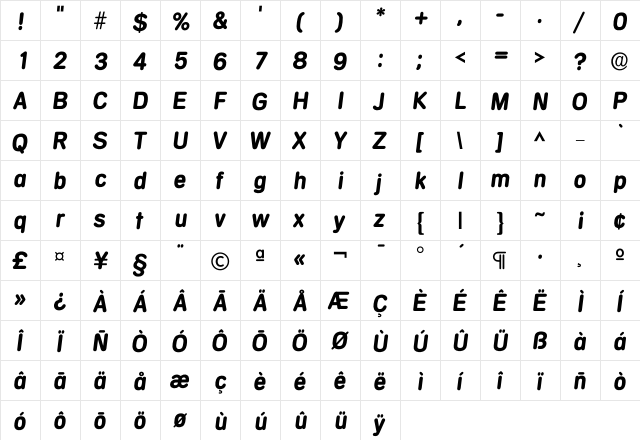
Imercedes Bold
Design Context for Imercedes Typeface
Imercedes offers clean, dependable letterforms without strong stylistic allegiance, making it a practical choice for designers who need flexibility. Its bold stroke weight gives it real presence on the page.